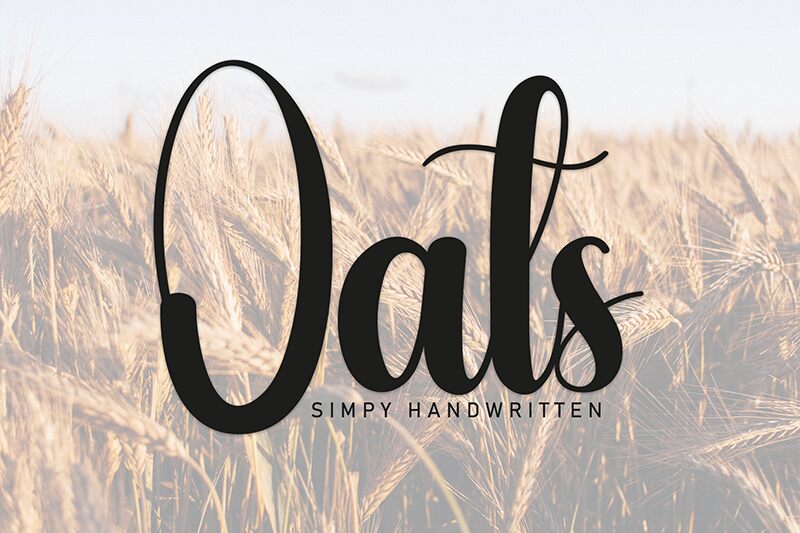
Oats
Oats font by Andi Moz is a free calligraphy font that balances expressive personality and modern aesthetics in an elegant way. This cursive script has beautiful flowing and graceful curves displayed in a condensed manner to allow for more content in a small space.